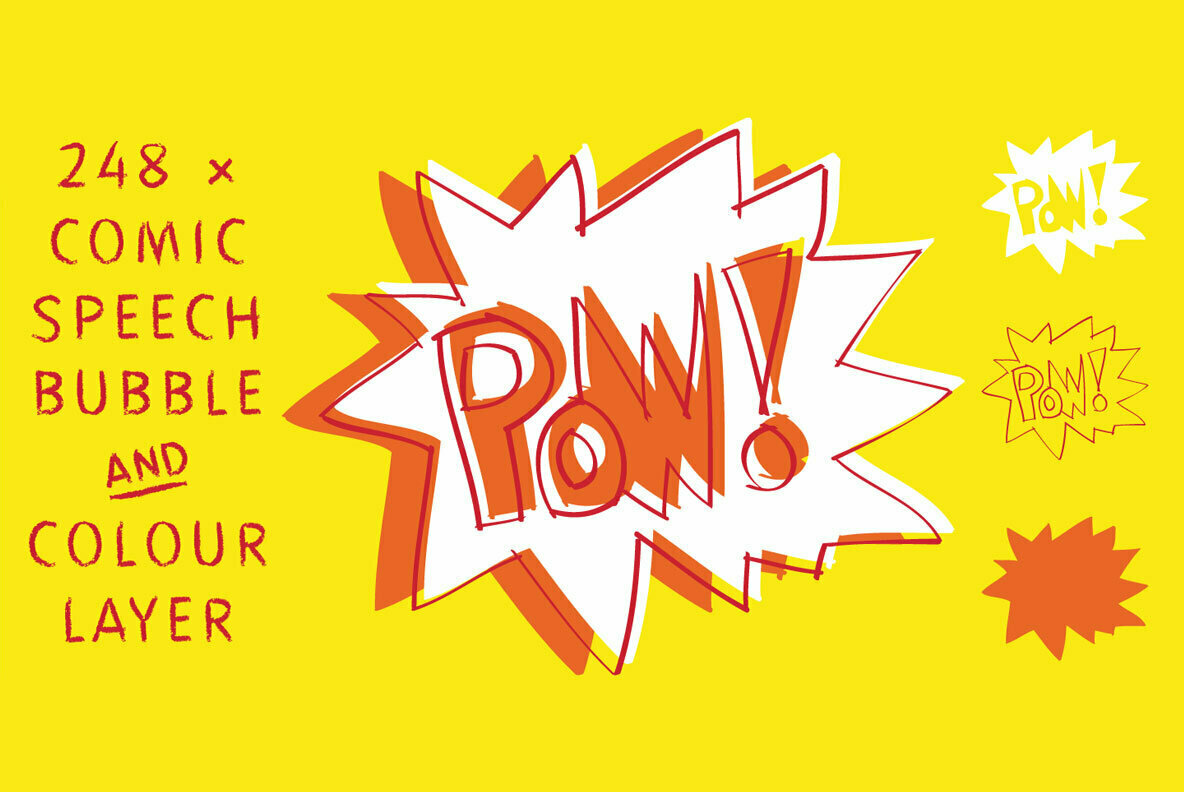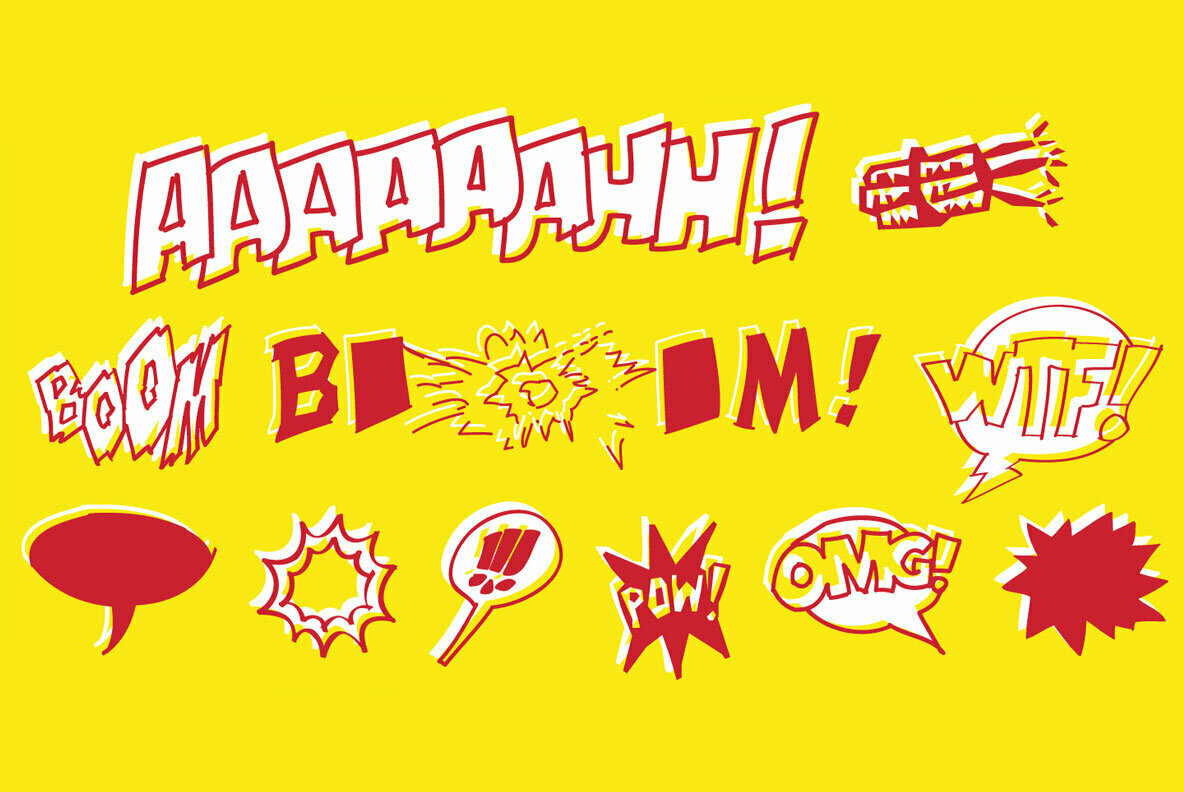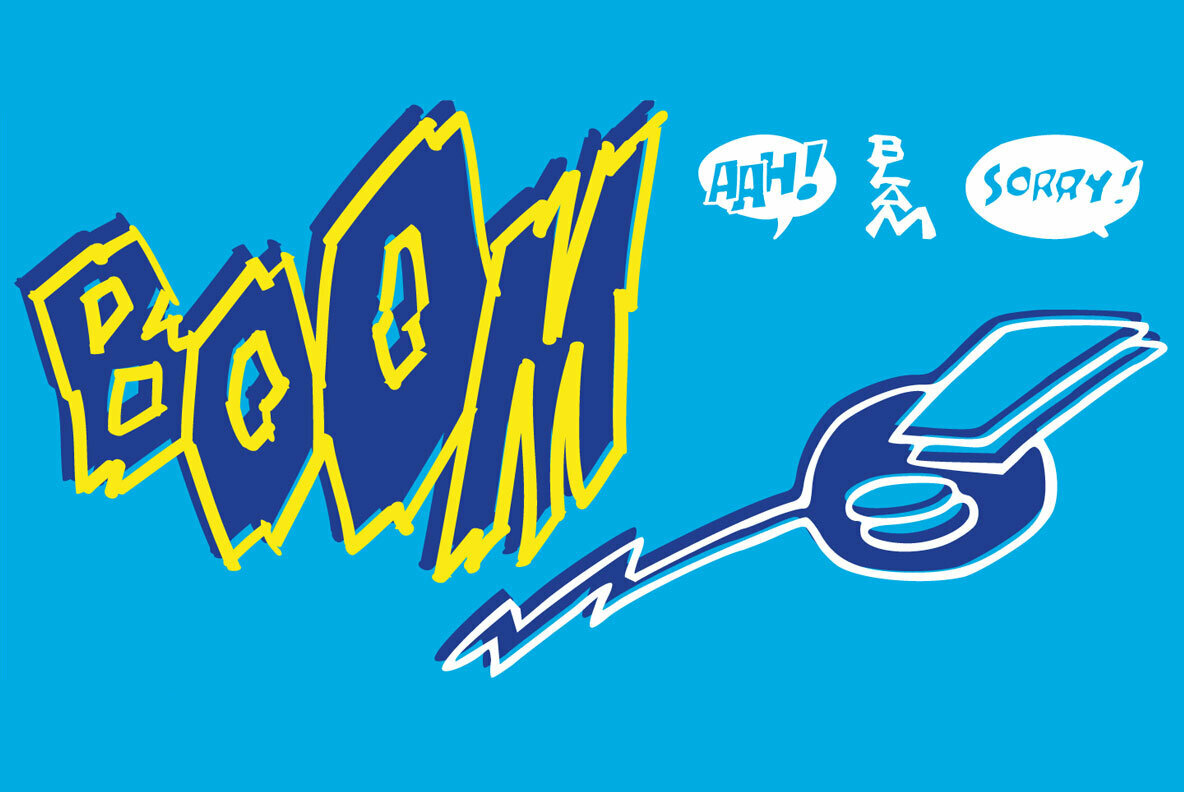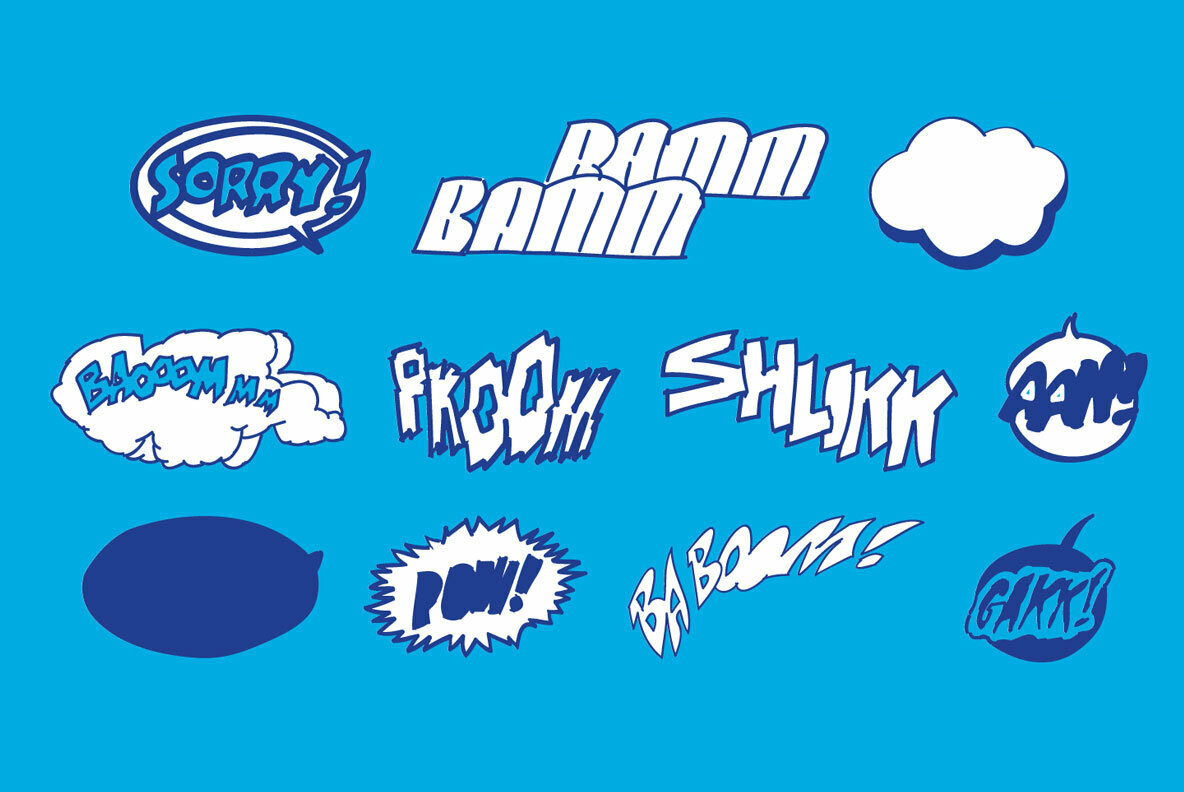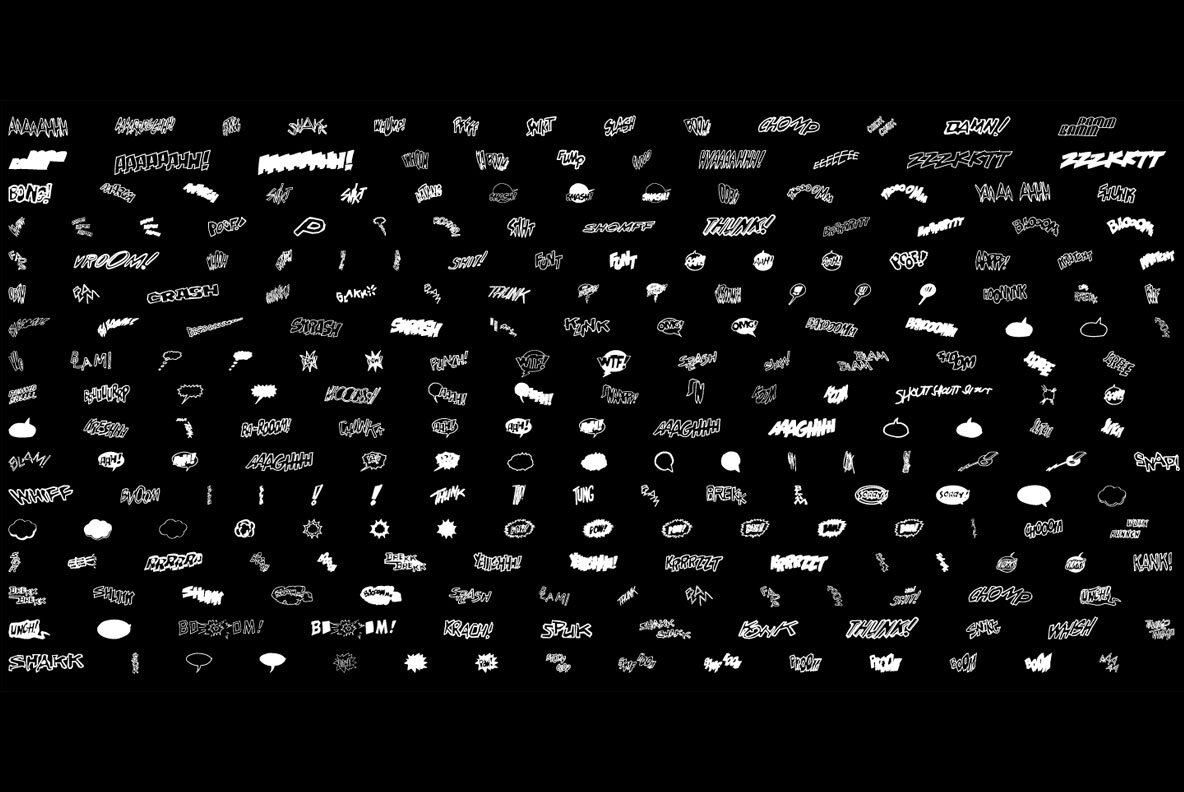
Boom Pang Pow Font
The typeface Boom Pang Pow is designed from 2020 for the font foundry Typo Graphic Design by Manuel Viergutz. A collection of comic and pop art elements like Speech Bubbles Catch Words, Punction Symbols, Boom, Pow, Bang … with various layers for coloring.